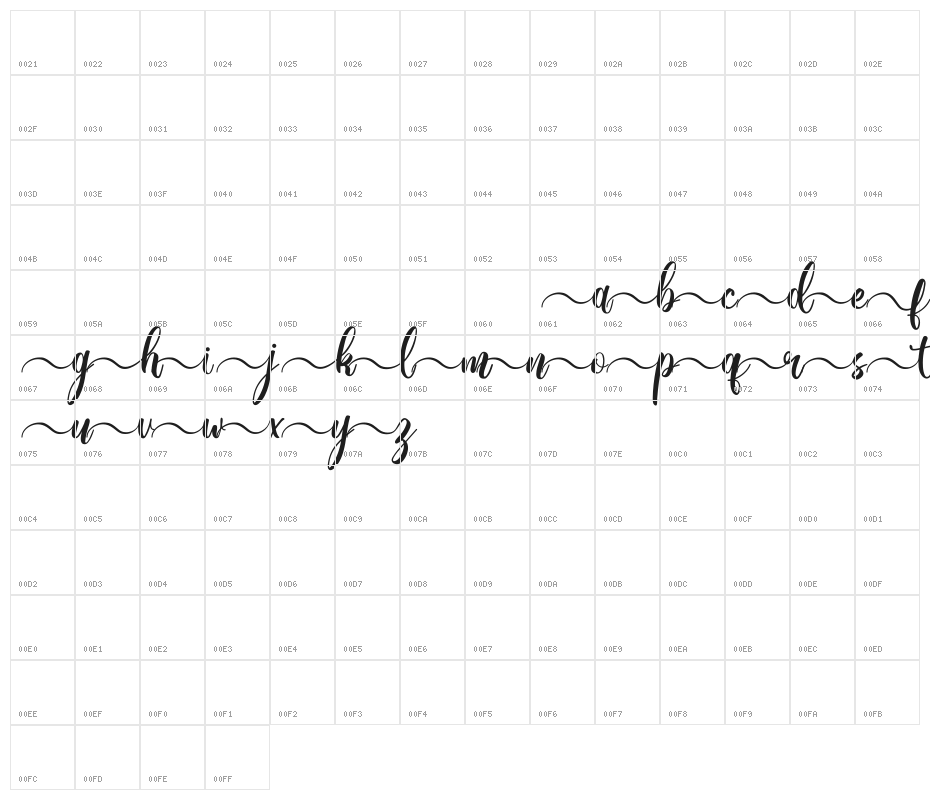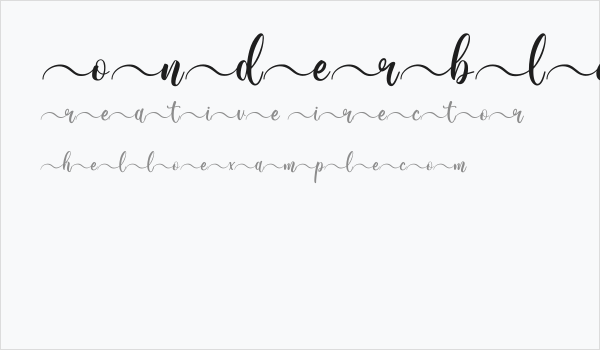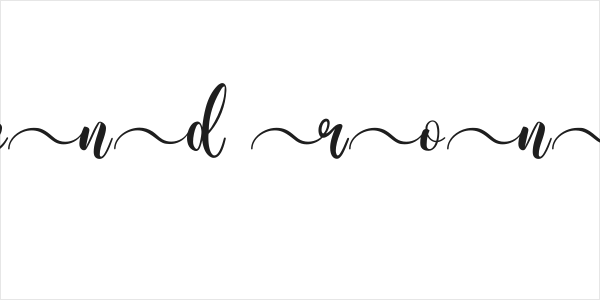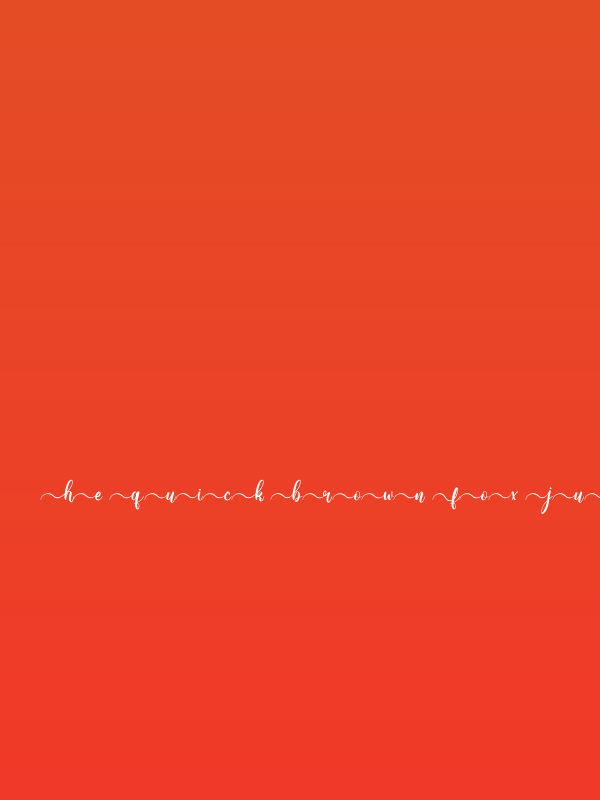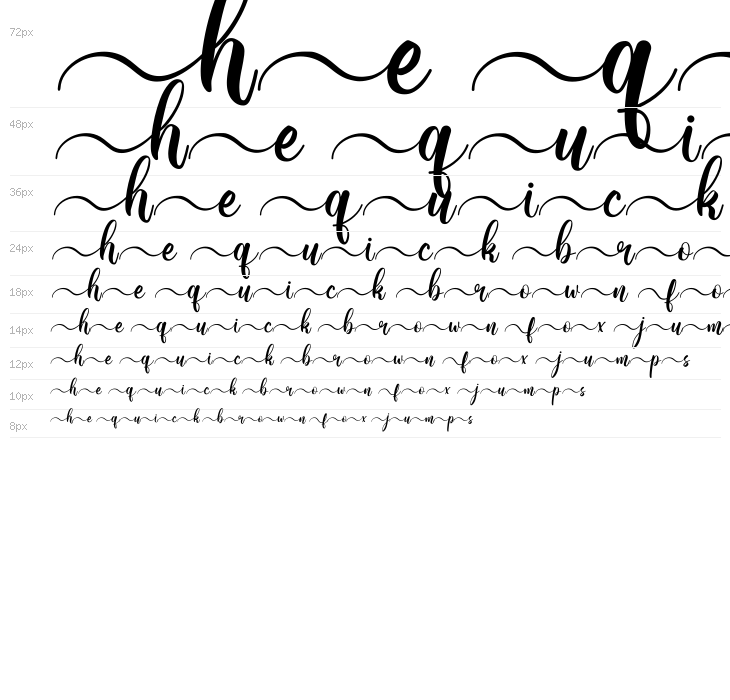
Wonderblend Front Demo Front Font
Wonderblend Front Demo Front Description
This font features an elegant and flowing script style, characterized by its delicate and intricate letterforms. Each character is connected with graceful, sweeping strokes that give it a sense of movement and fluidity. The font's design is reminiscent of traditional calligraphy, with a modern twist that adds a touch of sophistication and charm. The letters are well-balanced, with consistent line thickness and smooth curves, making it visually appealing and easy to read. Its artistic flair makes it suitable for creative and decorative applications, adding a personal and stylish touch to any project.